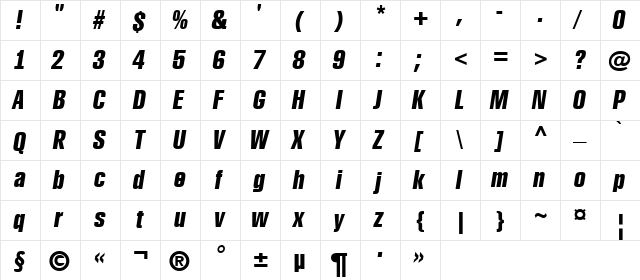
a_RubricaCn BoldItalic
Design Context for a_RubricaCn Typeface
a_RubricaCn takes a measured approach to typography — its balanced proportions and neutral character make it a reliable workhorse for both digital and print work. The dynamic lean of this cut emphasises speed and emphasis in any layout. Its bold stroke weight gives it real presence on the page.
Pro Tip: Try a_RubricaCn for annotation and caption copy alongside an upright companion — the contrast in angle creates a dynamic but ordered typographic system.